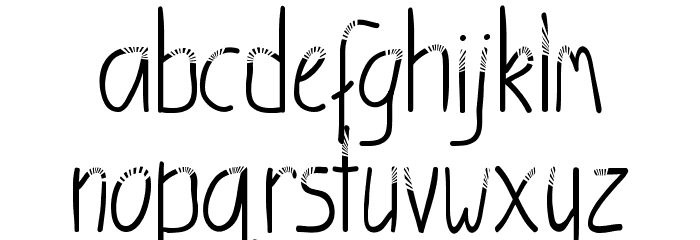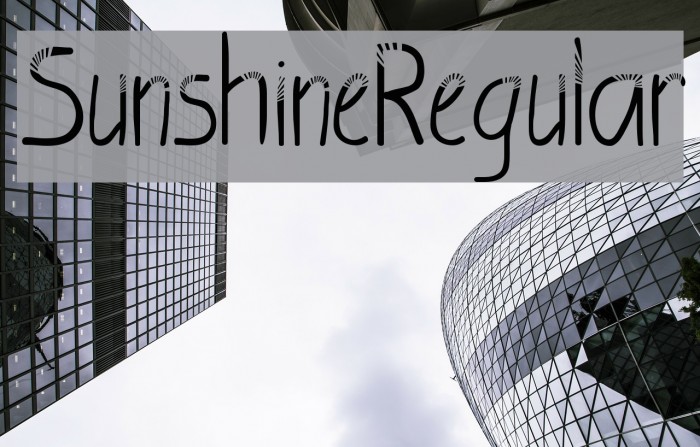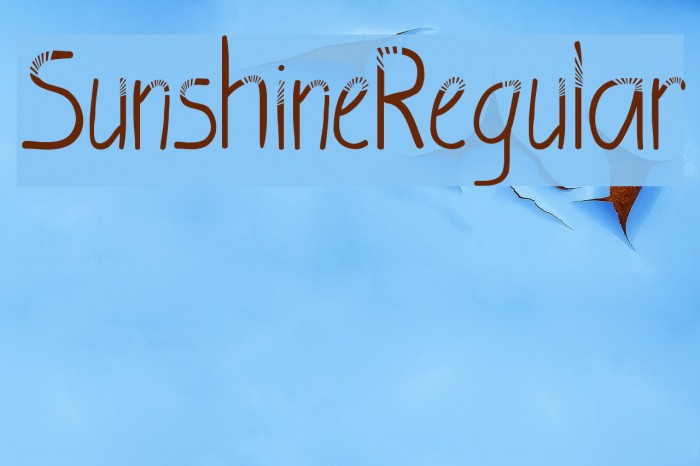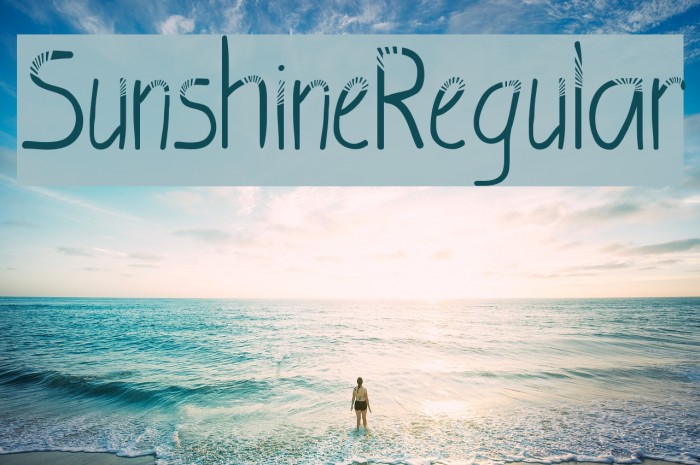
SunshineRegular Font
This playful and whimsical font features a unique hand-drawn style with a touch of artistic flair. The letters are characterized by a combination of smooth curves and subtle decorative elements, giving it a lively and dynamic appearance. The uppercase and lowercase letters maintain a consistent style, with slightly exaggerated strokes that add to its charm. The numbers and special characters are equally expressive, making this font suitable for creative and informal projects. Its distinct personality makes it stand out, while still maintaining legibility.
A playful, hand-drawn font with artistic flair and expressive characters.
- Proposed Projects: Ideal for children's books, greeting cards, playful branding, and creative posters.
- Overall Style: Whimsical, Artistic
- Use Case: Headlines, Logos, Creative projects